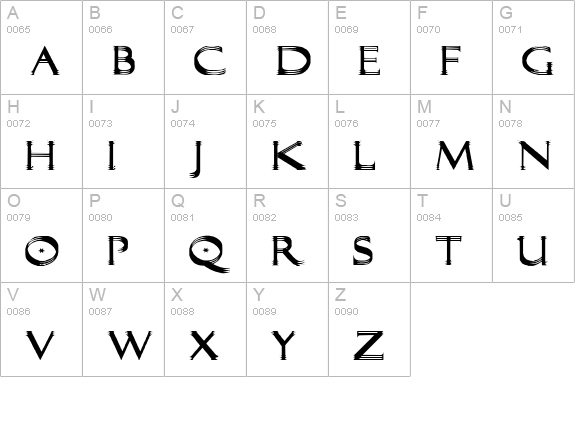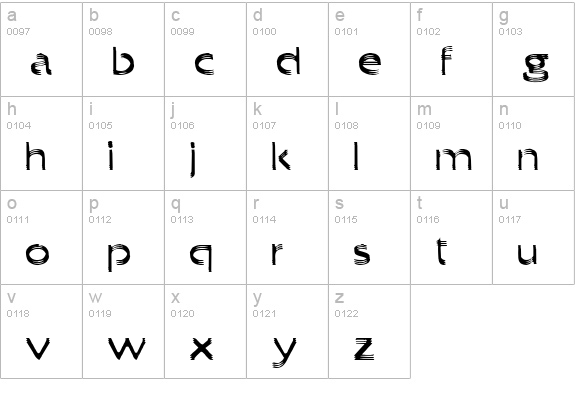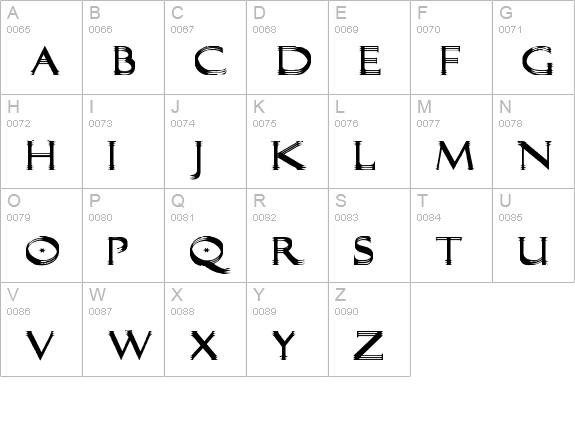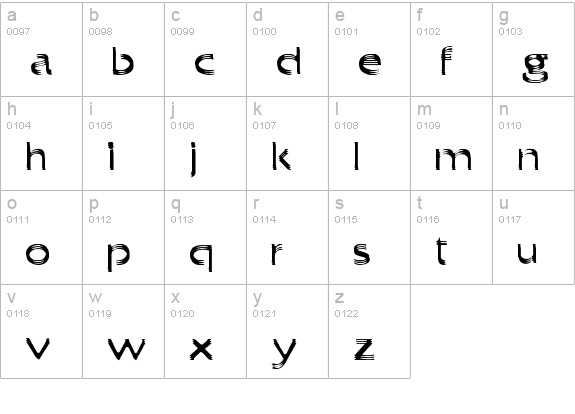
Trilayered Font Details
Introducing the Trilayered font, a stunning display typeface that is sure to captivate and inspire. This unique font is a perfect blend of elegance and modernity, with its three layers adding depth and dimension to every letterform. The Trilayered font boasts a harmonious combination of strong lines and delicate curves, creating a visually striking display that is bound to leave a lasting impression. Designed with versatility in mind, the Trilayered font is suitable for a wide range of creative projects. Whether you're designing eye-catching logos, attention-grabbing headlines, or stylish packaging, this font is guaranteed to elevate your designs to new heights. Its distinct layers allow for endless customization possibilities, enabling you to experiment and create unique typographic compositions that truly stand out. One of the greatest features of the Trilayered font is that it is freely available to download at FontsMarket.com. This means that designers and creatives alike can easily access this exceptional font without any cost, making it an invaluable resource for both personal and commercial projects. With its seamless integration into various design software and applications, the Trilayered font ensures a hassle-free experience for users, allowing them to effortlessly bring their visions to life. With its meticulously crafted letterforms, exquisite details, and a touch of contemporary flair, the Trilayered font is a must-have for any designer seeking to make a lasting impact. So why wait? Download the Trilayered font today at FontsMarket.com and unlock a world of endless design possibilities. Embrace the power of this versatile typeface and let your creativity soar to new heights.